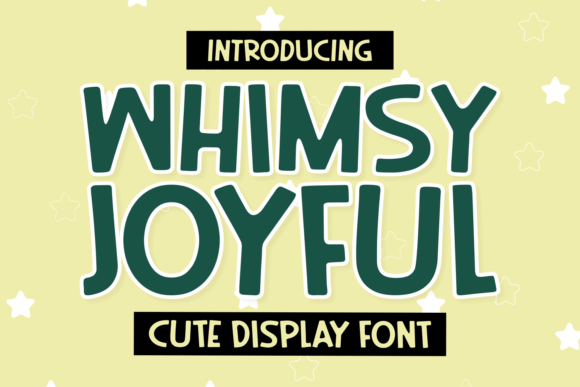
Embrace the Whimsy Joyful Font: Embark on a Typographic Adventure!
Step into the enchanting world of Whimsy Joyful, a display font that radiates pure delight and whimsy. This playful and charming font will dance across your designs, captivating audiences with its lively curves and joyful spirit. It's the perfect font to add a touch of magic to your creative projects, making them burst with personality.
Whimsy Joyful is a versatile font family that can effortlessly adapt to various design styles, from playful and whimsical to elegant and sophisticated. Its unique character will add a touch of whimsy to your designs, making them stand out from the crowd.
With Whimsy Joyful as your typographic companion, you'll have the freedom to create designs that spark joy and ignite imaginations. Whether you're crafting stunning posters, captivating book covers, enchanting brand logos, or heartfelt quote designs, this font will elevate your creations to new heights.
Dive into the World of Whimsy Joyful: Experience Endless Creative Possibilities
- Add a Touch of Delight to Your Designs: Bring a smile to your audience's faces with Whimsy Joyful's cheerful and upbeat personality. Its playful curves and cheerful style will infuse your designs with an irresistible charm that will capture hearts.
- Unleash Your Creativity: Let your imagination soar with Whimsy Joyful as your creative partner. This font will inspire you to explore new design possibilities, push boundaries, and create works of art that leave a lasting impression.
- Stand Out from the Crowd: In a world of ordinary fonts, Whimsy Joyful dares to be different. Its unique style will make your designs shine brighter, ensuring that they stand out from the competition and leave a lasting impact on your audience.
- Experience Typographic Versatility: Whimsy Joyful is a versatile font that effortlessly adapts to a wide range of design projects. From playful children's games to elegant wedding invitations, this font will seamlessly blend into your design vision, adding a touch of whimsy wherever it goes.
- Express Yourself with Joyful Typography: Pour your heart and soul into your designs with Whimsy Joyful as your expressive tool. This font will faithfully convey your emotions and messages, allowing you to connect with your audience on a deeper level and create designs that resonate with their hearts.